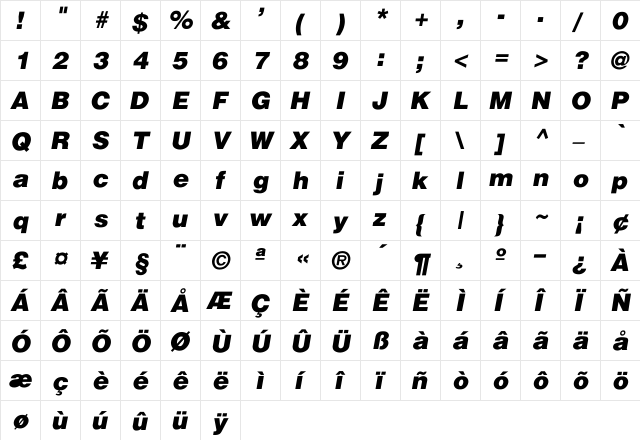
Holland WIDE Italic Regular
Design Context for Holland WIDE Italic Typeface
Holland WIDE Italic offers clean, dependable letterforms without strong stylistic allegiance, making it a practical choice for designers who need flexibility. The dynamic lean of this cut emphasises speed and emphasis in any layout.
Pro Tip: Try Holland WIDE Italic for annotation and caption copy alongside an upright companion — the contrast in angle creates a dynamic but ordered typographic system.